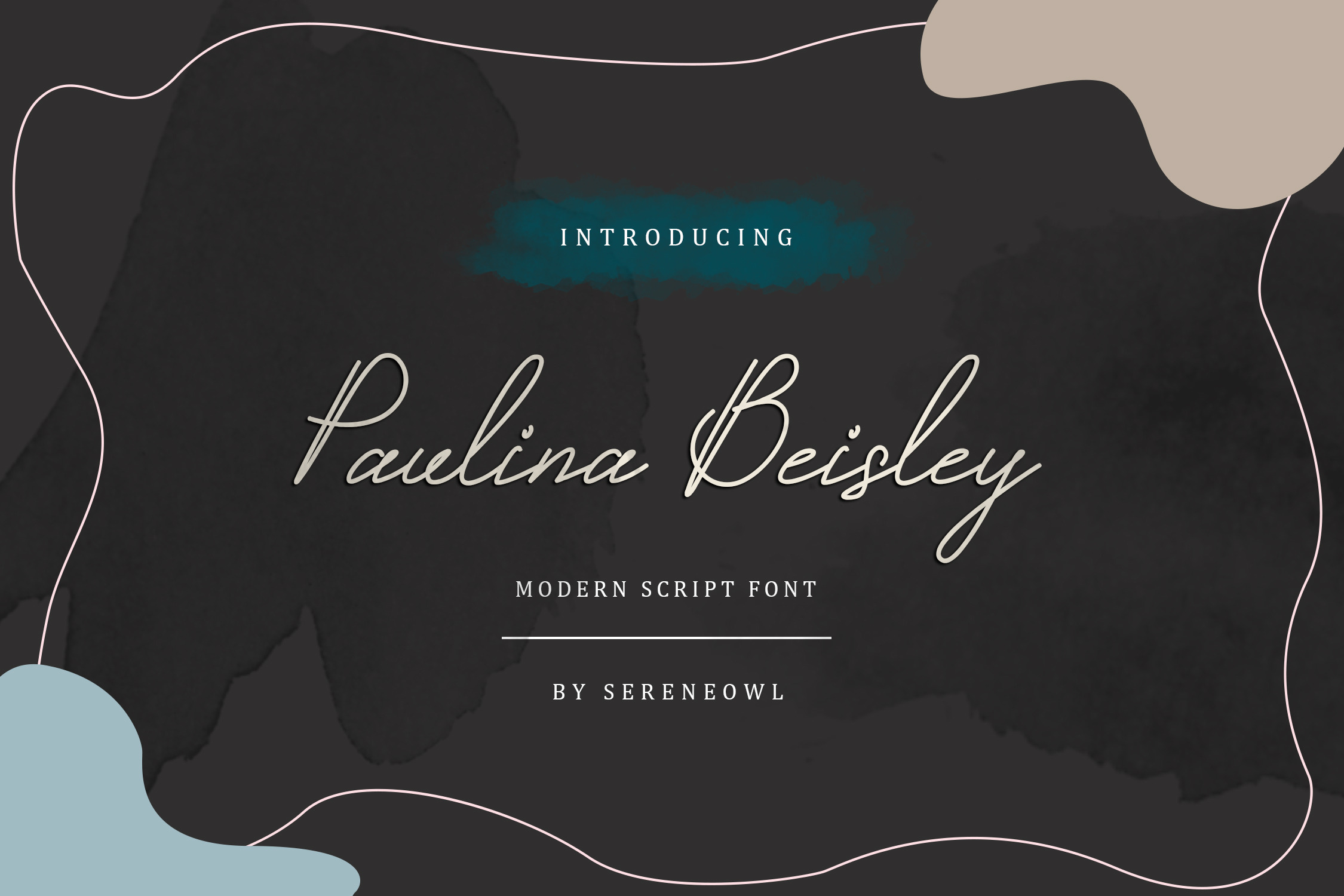
Calligraphic Script Font - Paulina B
PAULINA BEISLEY is a modern calligraphic font in a monoline script style. It is a versatile, modern twist on classic cursive. You can use this typeface for branding, youtube, social media, weddings, stationery, packaging, layout design, and advertising.
PAULINA BEISLEY font includes full set of charming uppercase, lowercase, multilingual chars/international letters, numerals, currency signs, a large range of punctuation, symbol, and others.